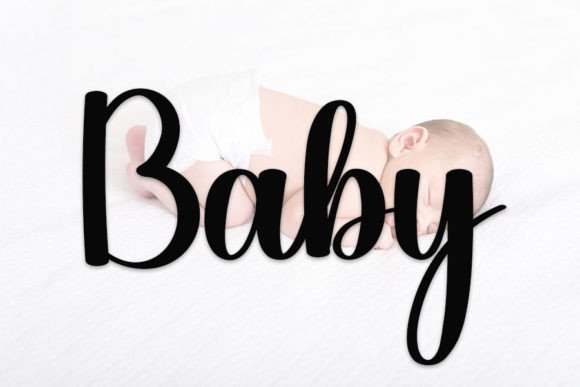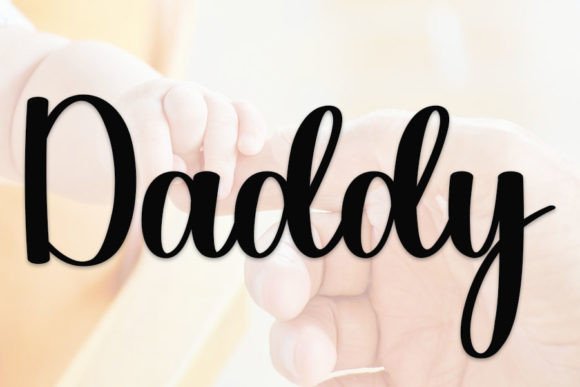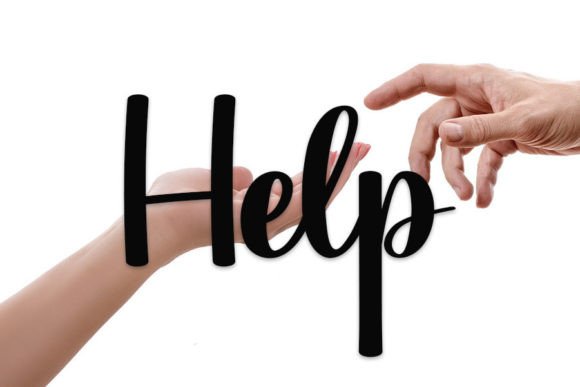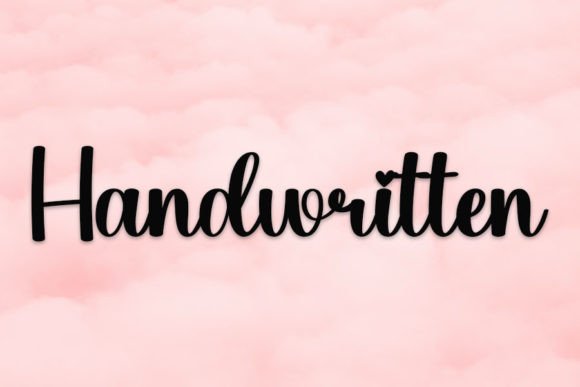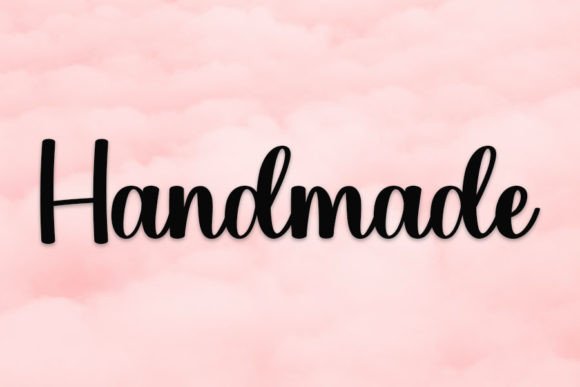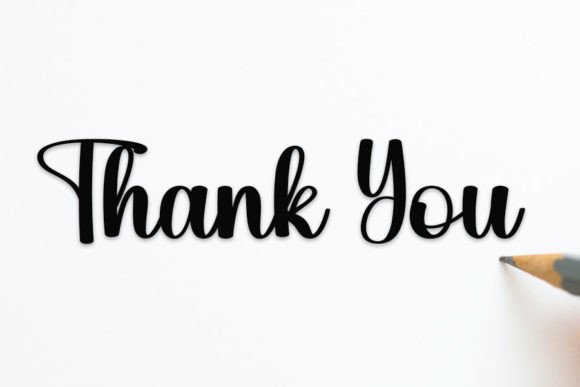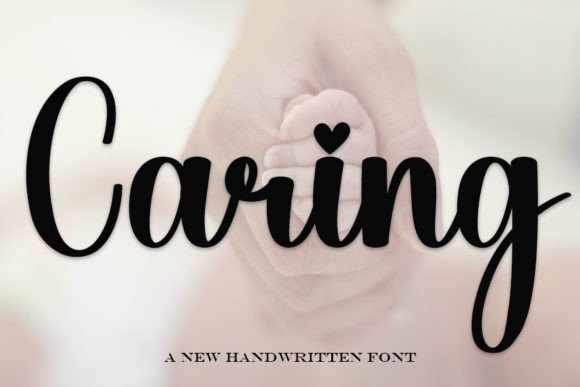
Caring Font: Elevate Your Designs with Elegance and Timeless Style
Are you on the hunt for a font that exudes elegance, sophistication, and a touch of handmade charm? Look no further than Caring Font, a beautiful handwritten typeface that is sure to capture your heart. With its distinct and timeless style, Caring Font is perfect for designers and crafters seeking to add a personal touch to their projects.
What is Caring Font?
Caring Font is a meticulously crafted handwritten font, characterized by its elegant touch and refined aesthetic. Its unique blend of classic and modern elements makes it an excellent choice for a wide range of design applications, from digital projects to print materials. Whether you’re working on a logo, branding, social media graphics, or invitations, Caring Font is sure to bring a level of sophistication and whimsy to your work.
Key Features of Caring Font
- Handwritten with Love: Caring Font is a genuine handwritten typeface, boasting a level of authenticity that sets it apart from more generic fonts.
- Elegant Touch: The font’s elegant touch adds a level of refinement and poise to any design, making it perfect for projects that require a bit of luxury and sophistication.
- Distinct and Timeless Style: Caring Font’s unique style is both modern and classic, ensuring that your designs will stand the test of time and remain relevant for years to come.
- Versatile: With its clear and legible design, Caring Font is suitable for a wide range of applications, from headings and titles to body text and captions.
Why Choose Caring Font?
There are countless fonts available to designers and crafters, but Caring Font stands out from the crowd for several reasons:
- Emotional Connection: Handwritten fonts like Caring Font have the power to evoke emotions and create a personal connection with your audience.
- Authenticity: In an age of digital design, Caring Font’s handmade aesthetic adds a refreshing touch of authenticity to your work.
- Easy to Read: Despite its elegant nature, Caring Font remains highly legible, making it perfect for use in both digital and print materials.
Using Caring Font in Your Designs
So, how can you incorporate Caring Font into your designs? Here are a few ideas to get you started:
- Logos and Branding: Use Caring Font to create a unique and memorable logo that reflects your brand’s personality and values.
- Social Media Graphics: Add a touch of elegance to your social media graphics, including Facebook posts, Instagram stories, and Twitter headers.
- Invitations and Stationery: Caring Font is perfect for creating beautiful invitations, greeting cards, and stationery that exude warmth and personality.
- Web Design: Use Caring Font to create stunning website headers, titles, and captions that showcase your brand’s style and sophistication.
Tips for Working with Caring Font
To get the most out of Caring Font, keep the following tips in mind:
- Experiment with Sizes and Colors: Don’t be afraid to play around with different font sizes and colors to find the perfect combination for your design.
- Pair with Other Fonts: Caring Font pairs beautifully with other fonts, so try combining it with a sans-serif font for added contrast and visual interest.
- Use it Sparingly: While Caring Font is beautiful, it’s best used sparingly to avoid overwhelming your design. Use it for headings, titles, and key messages to create visual hierarchy.
In conclusion, Caring Font is a beautiful and elegant handwritten typeface that is sure to capture your heart. With its distinct and timeless style, it’s perfect for designers and crafters seeking to add a personal touch to their projects. Whether you’re working on a logo, social media graphics, or invitations, Caring Font is sure to bring a level of sophistication and whimsy to your work. So why wait? Fall in love with Caring Font and start creating spectacular designs today!